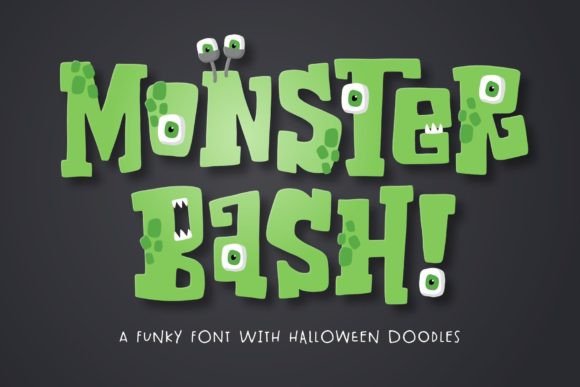
Are you ready to add a touch of spookiness and playfulness to your fall designs? Look no further than Monster Bash Font, the ultimate choice for all your Halloween-themed projects. Created by the talented Denise Chandler, this bold and blocky slab serif font is a must-have for anyone seeking the best fonts for fall.
What sets Monster Bash Font apart from the rest is its delightful collection of cute Halloween doodles. From bats and pumpkins to witches and ghosts, this font brings an extra level of charm to your designs. Imagine your social media posts, invitations, and party decorations adorned with these adorable icons, instantly creating a festive and fun atmosphere.
But that's not all – Monster Bash Font goes above and beyond with its incredible Open Type features. When used in programs that support these features, the characters of this font automatically interlock, creating a seamless and visually captivating effect. It's like magic, instantly transforming your text into a work of art.
When it comes to marketing your products or services, the right font plays a crucial role in capturing your audience's attention. Monster Bash Font excels in this aspect, as its bold and attention-grabbing slab serif style demands to be noticed. Whether you're designing banners, posters, or website headers, this font will make your message stand out from the crowd.
Embrace the fall season with Monster Bash Font and let its emotional and creative power captivate your audience. With its keyword-rich appeal, this font is not only perfect for Halloween-themed designs but also for any project that aims to evoke a sense of coziness, warmth, and autumnal charm. Let your creativity run wild and watch as the magic of Monster Bash Font takes your designs to the next level.